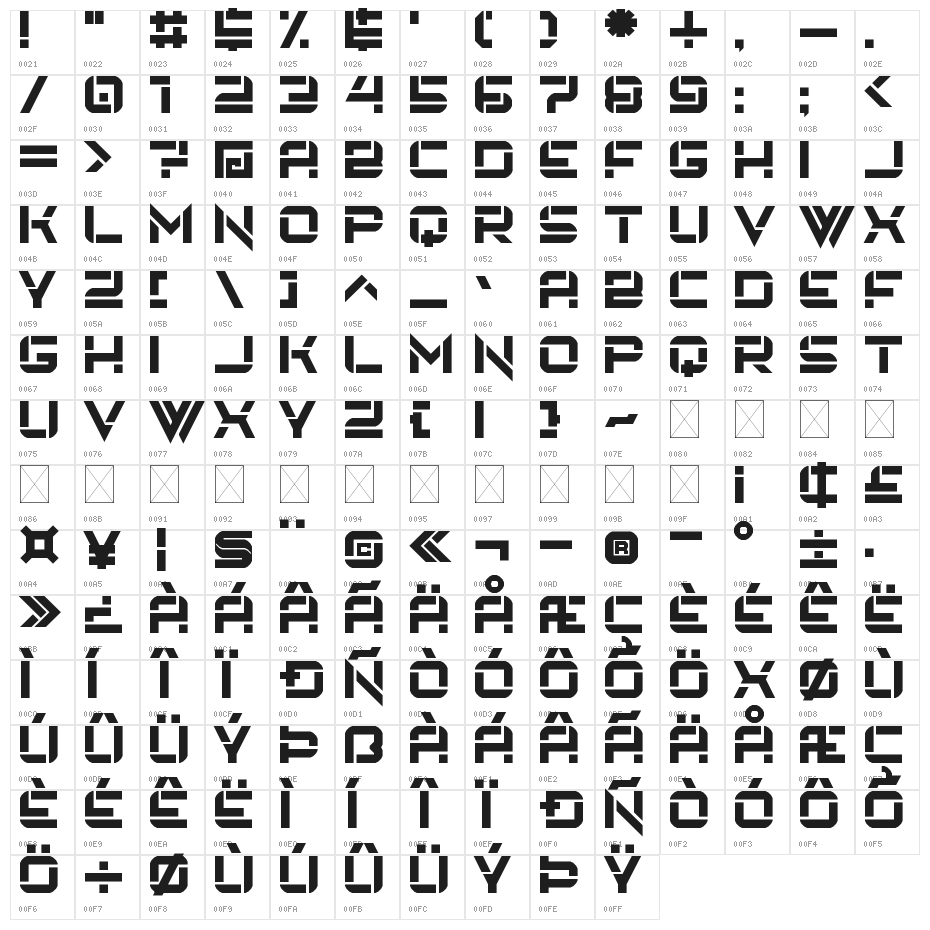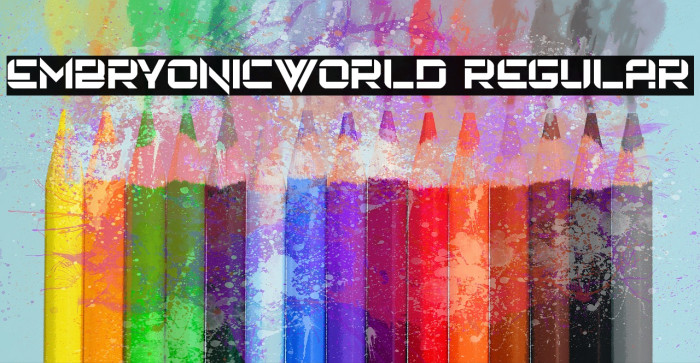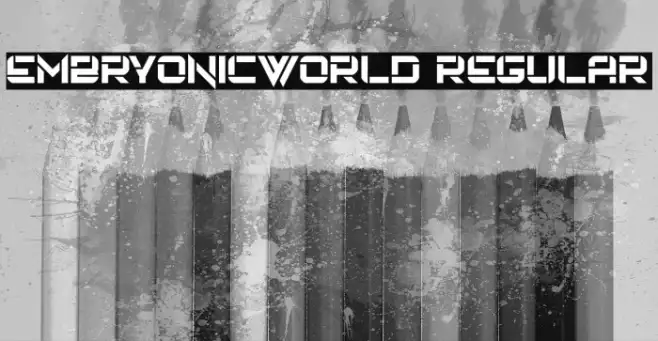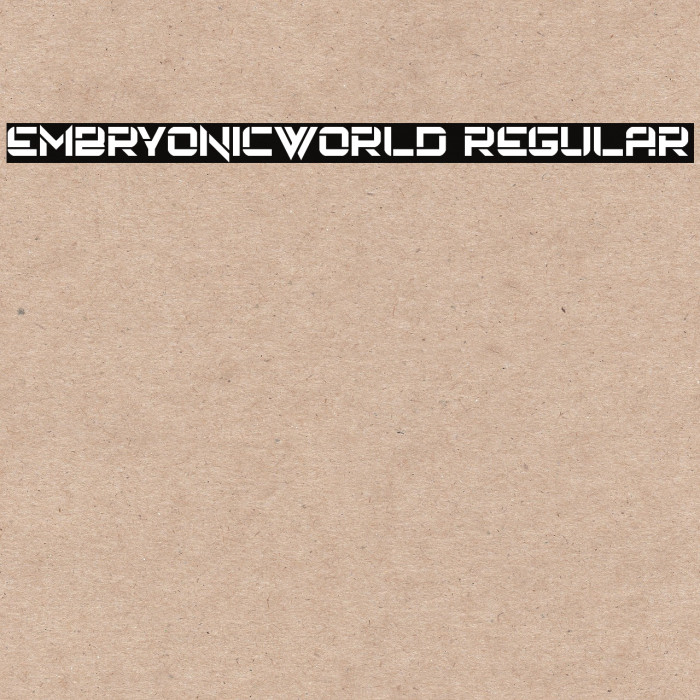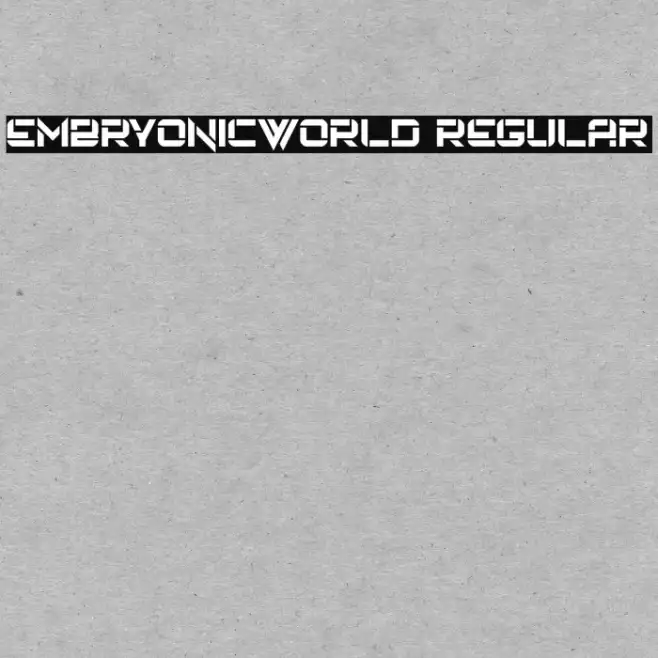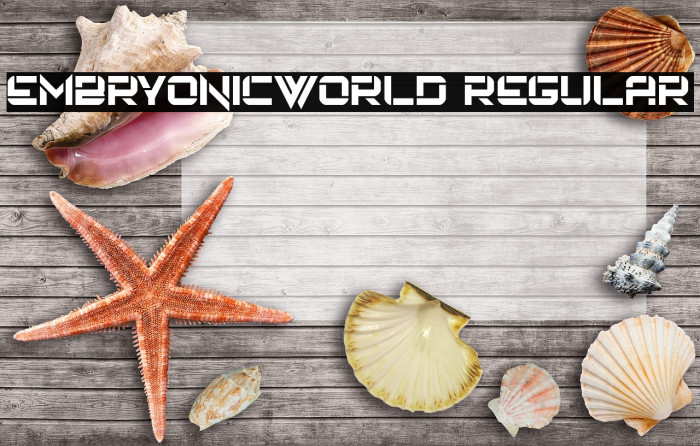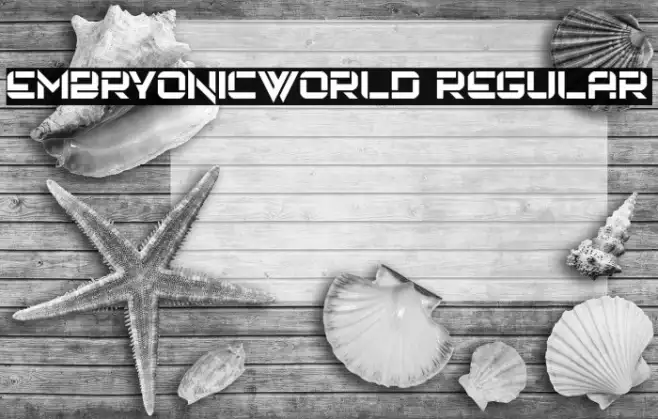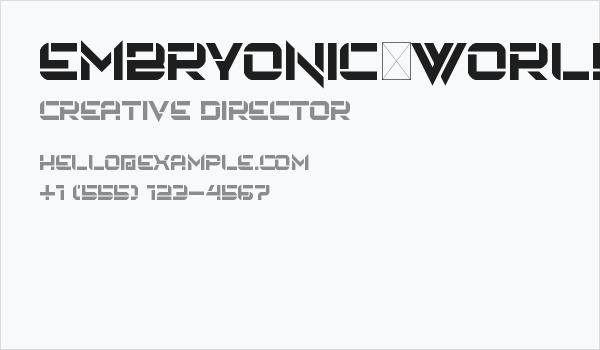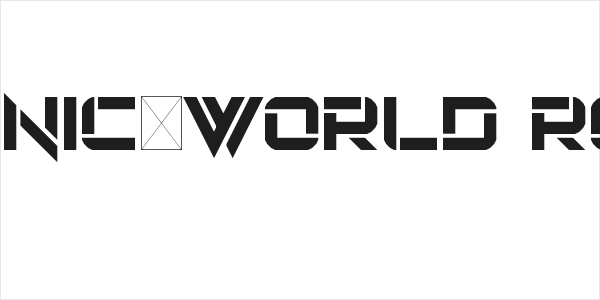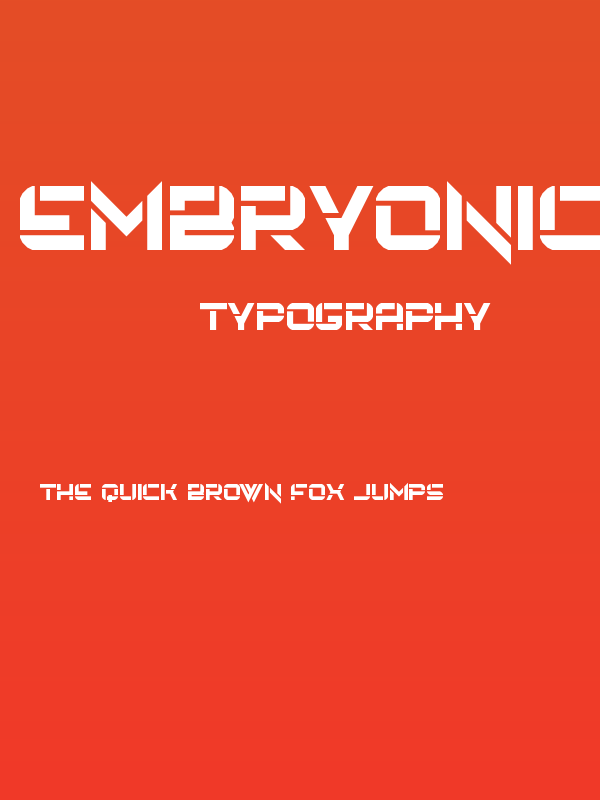
Embryonic World Regular Font
Embryonic World Regular Description
This font features a bold, futuristic design with geometric shapes and sharp angles. The characters are constructed with a stencil-like appearance, creating a sense of modernity and innovation. The uppercase and lowercase letters share a consistent style, emphasizing uniformity and cohesion. Numbers and special characters maintain the same aesthetic, ensuring a seamless visual experience across all text elements. The font's distinct style makes it ideal for projects that require a cutting-edge, technological feel.
| Proposed Projects | Ideal for technology branding, sci-fi movie posters, video game titles, and modern digital interfaces. |